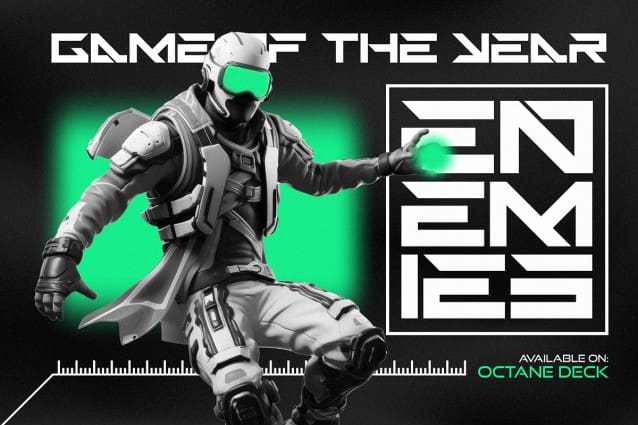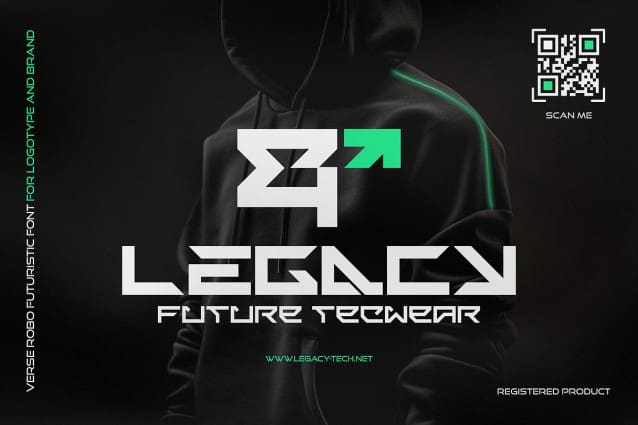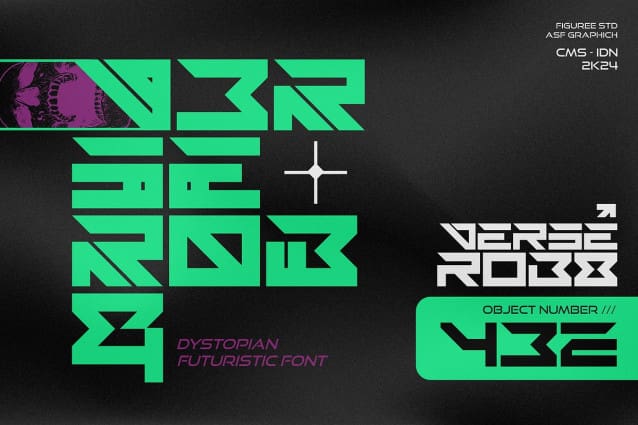
Verse Robo Font
Verse Robo Font, the dystopian futuristic font that bridges the gap between chaos and order in typographic design. More than just a font, Verse Robo is a visual echo of a world where technology and rebellion converge, each character pulsating with the raw energy of a dystopian metropolis.
🌆 Urban Rebellion: Immerse your designs in the gritty, neon-soaked aesthetic of a dystopian cityscape. Verse Robo captures the essence of rebellion, making it the ideal choice for projects that demand an edgy, futuristic vibe.
🚀 Futuristic Edge: Propel your designs into the future with a font that speaks the language of innovation. Verse Robo‘s sleek lines and avant-garde design transport your audience to a world where the boundaries of conventional typography are shattered.
⚙️ Mechanical Precision: Each character in Verse Robo is crafted with meticulous precision, mirroring the cold efficiency of a dystopian machine. The result is a font that balances the chaos of rebellion with the calculated order of a futuristic dystopia.
🎮 Gaming Universes: Perfect for gaming graphics, sci-fi book covers, or any project where you want to evoke the essence of a dystopian future. VerseRobo adds a layer of narrative depth to your visual storytelling.
🔗 Versatile Creativity: Whether you’re designing posters, branding, or digital interfaces, Verse Robo adapts seamlessly to your creative vision. Its versatility allows you to infuse a touch of dystopian flair into a wide range of design projects.
🌌 Limitless Possibilities: Break free from the ordinary and embrace the extraordinary. Verse Robo opens the door to a realm of limitless possibilities, where every character is a glimpse into a dystopian future waiting to be explored.
Elevate your designs with Verse Robo – because in the dystopian future of typography, this font is the rebel with a cause, transforming your creations into a visual manifesto of futuristic rebellion!